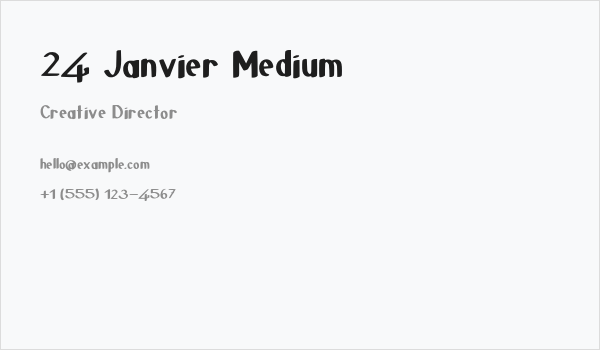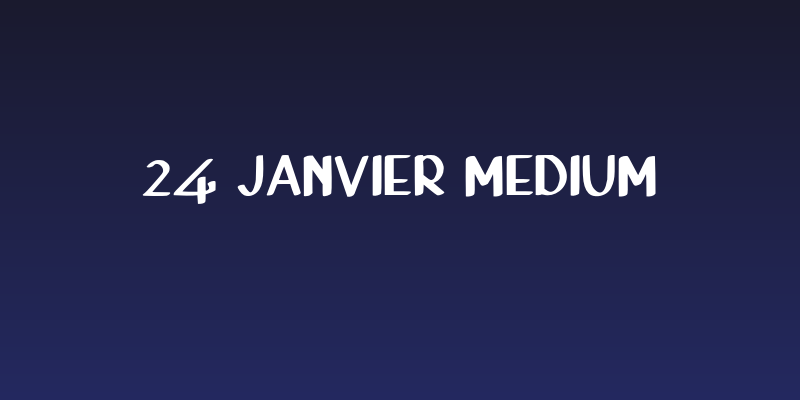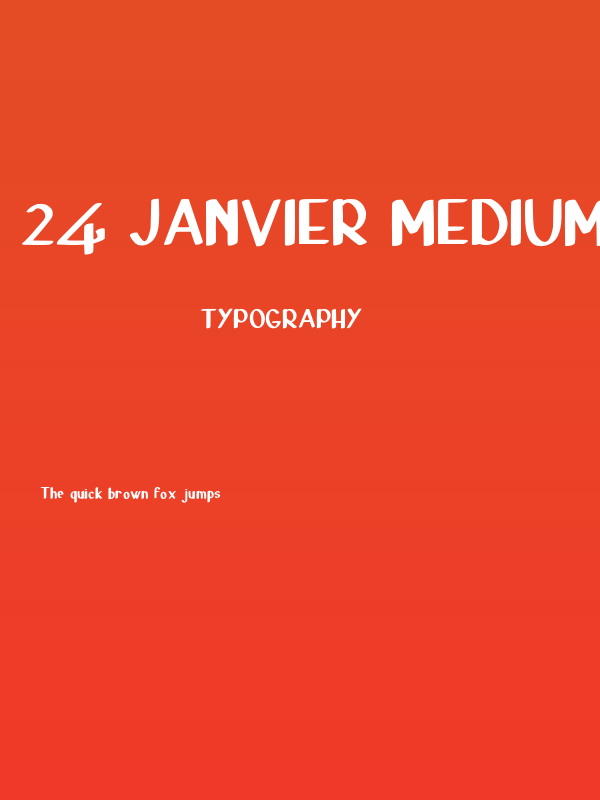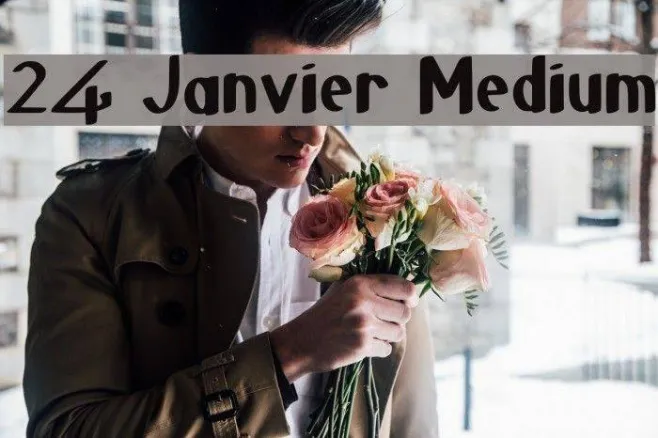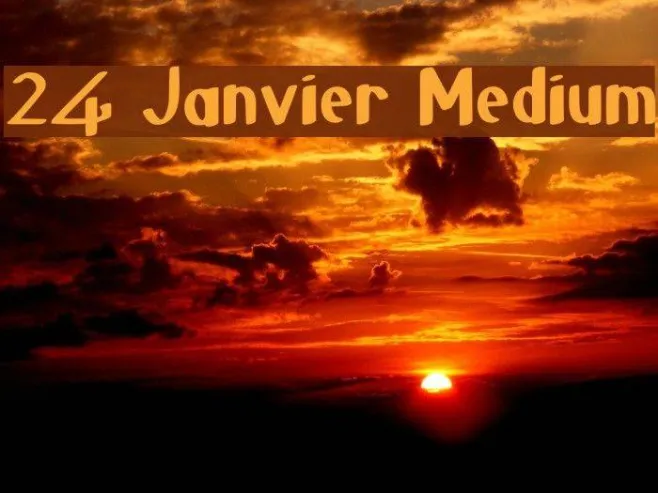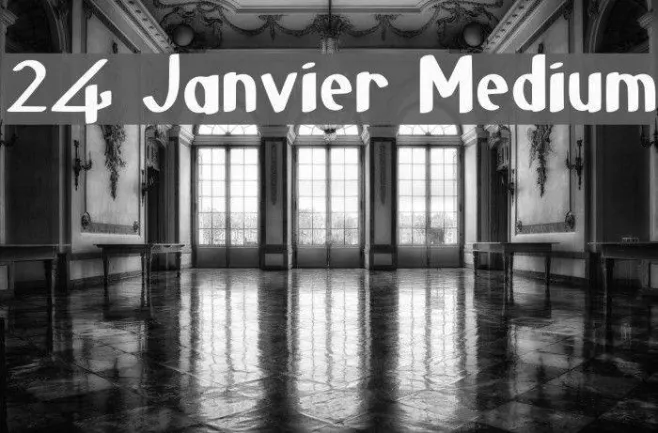
24 Janvier Medium Font
24 Janvier Medium Description
This font features a playful and bold design with rounded edges and a slightly condensed appearance. The uppercase letters are uniform in height, while the lowercase letters maintain a consistent baseline with some playful variations in stroke width. The numerals are distinctive, with a quirky style that complements the overall aesthetic. Special characters are well-integrated, maintaining the font's cohesive look. This font is ideal for projects that require a fun and approachable feel, making it suitable for children's books, playful branding, or creative posters.
| Overall Style | Playful, Casual |
| Proposed Projects | Children's books, playful branding, creative posters, and casual invitations. |